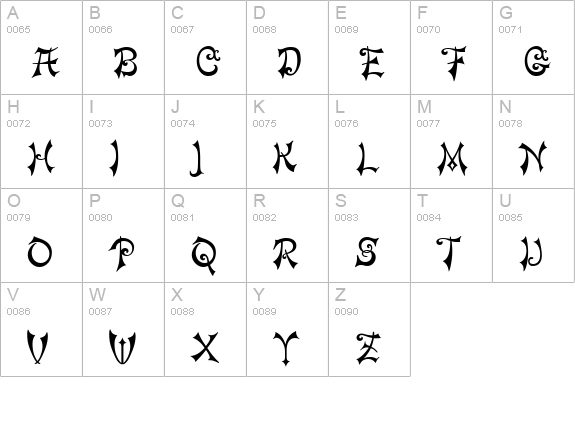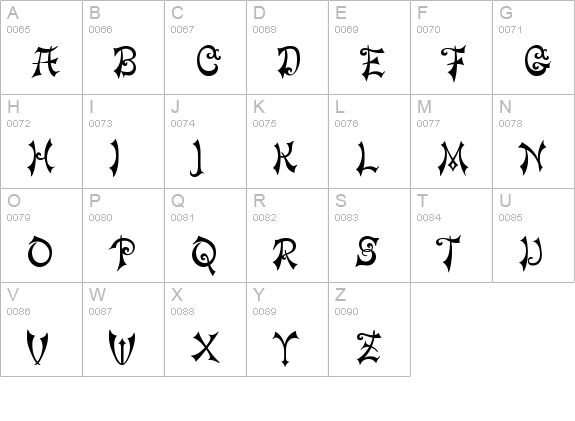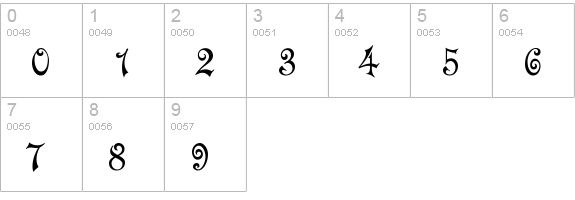
Matilda Font Details
Matilda font is a beautifully crafted typeface that exudes elegance and sophistication. Its graceful curves and delicate serifs give it a timeless and classic appeal, making it perfect for a wide range of design projects. Whether you're creating wedding invitations, branding materials, or editorial layouts, Matilda font will add a touch of refinement to your work. But what makes Matilda font even more attractive is that it is free to download at FontsMarket.com. Yes, you read that right - this exquisite font can be yours without any cost. Take advantage of this generous offer and enhance your designs with the beauty of Matilda font today.